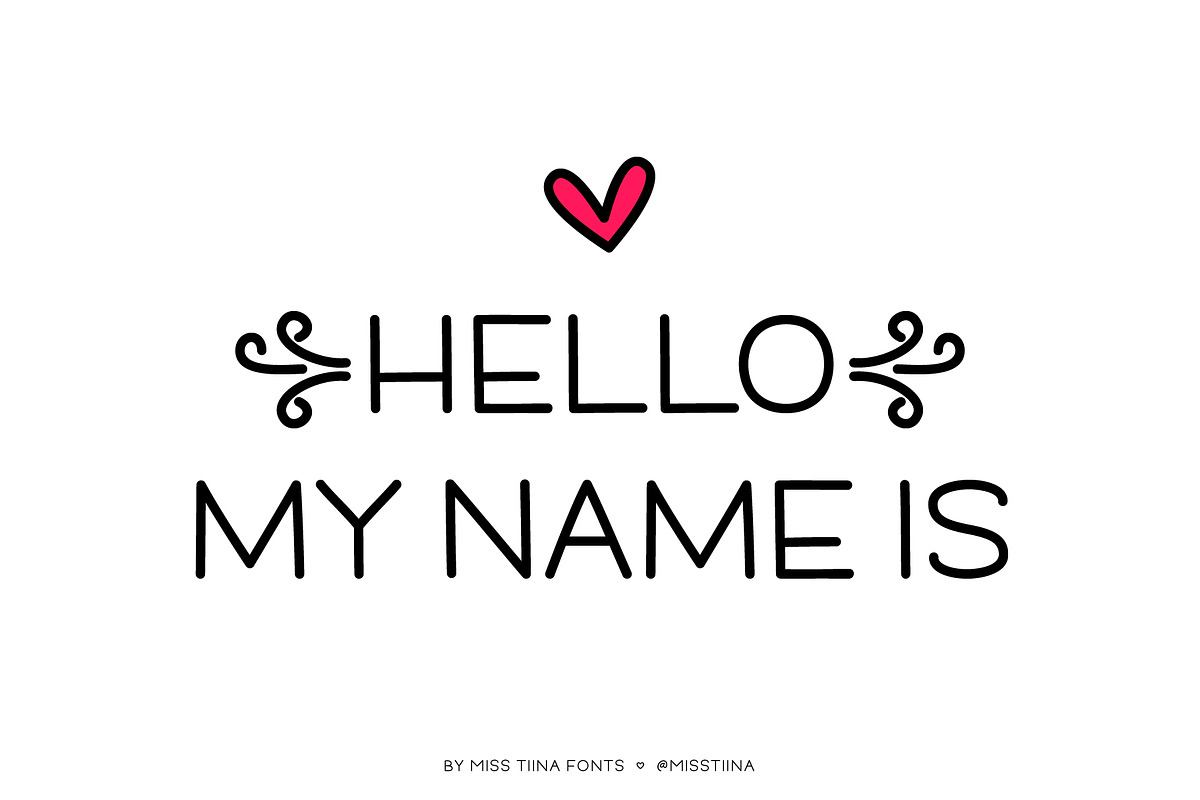
Say hello to creativity with Hello My Name Is Font Free Download — a playful and friendly typeface that adds personality and charm to every project. Designed to mimic the look of hand-drawn name tags, this font is perfect for stickers, greeting cards, social media posts, kids' projects, event labels, and casual branding.
With its fun curves and approachable style, this font gives your words a voice that feels personal and inviting. It includes uppercase and lowercase letters, numbers, punctuation, and multilingual support, making it a versatile choice for all kinds of light-hearted and creative designs.